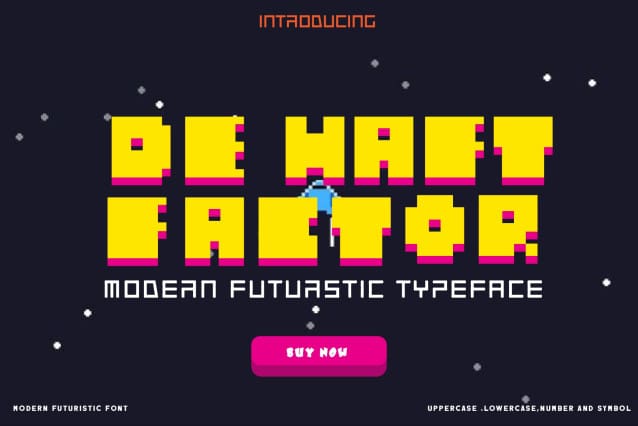
De Factor Font
De Factor Font is a typeface that perfectly blends modern futuristic aesthetics with a bold retro vibe. Featuring blocky, thick letterforms with sharp edges, this font exudes power and energy, making it an eye-catching choice for a wide range of design projects.
The typeface utilizes vibrant yellow as its primary color, complemented by striking pink shadows that create a bold 3D visual effect. This color combination adds a playful yet futuristic touch, making it ideal for designs that demand attention and creativity.